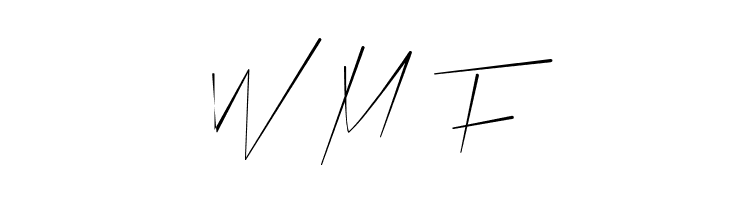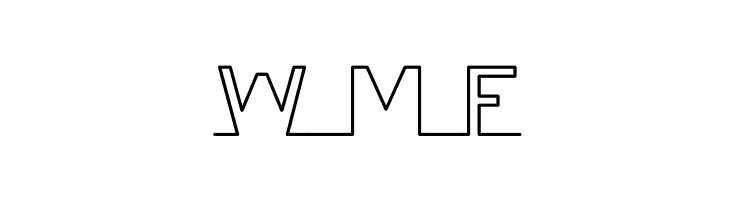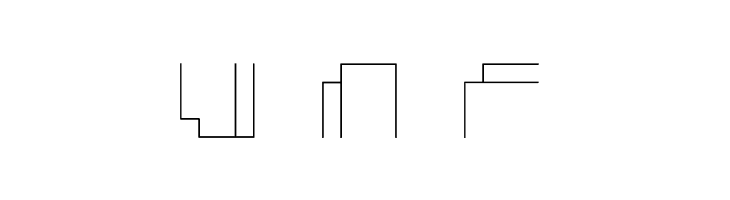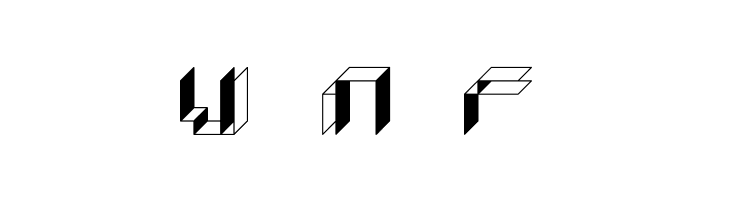
( Måns Grebäck - www.mansgreback.com )
An elegant script font with intricate flourishes and a refined, flowing style.
( Måns Grebäck - www.mansgreback.com )
A dynamic, thin-stroked font with elegant, expressive forms.
( Måns Grebäck - www.mansgreback.com )
A bold, handwritten font with dynamic and energetic strokes.
( Måns Grebäck - www.mansgreback.com )
A dynamic handwritten font with elongated, slanted characters.
( Pisto Casero - Gilberto Moya Perona - www.pistocasero.com )
A whimsical and decorative font with elegant swirls and curls.
( Pisto Casero - Gilberto Moya Perona - www.pistocasero.com )
A modern, geometric outline font with a futuristic and digital aesthetic.
( Pisto Casero - Gilberto Moya Perona - www.pistocasero.com )
A playful dashed line font with a casual and creative style.
( Pisto Casero - Gilberto Moya Perona - www.pistocasero.com )
A decorative dotted font with a modern and playful aesthetic.
( Pisto Casero - Gilberto Moya Perona - www.pistocasero.com )
A geometric, minimalist font with a wireframe design and uniform line weight.
( Pisto Casero - Gilberto Moya Perona - www.pistocasero.com )
A bold, 3D geometric font with an origami-like design.